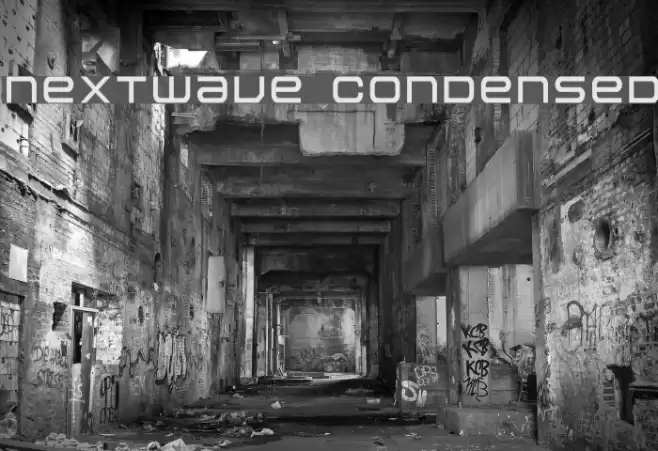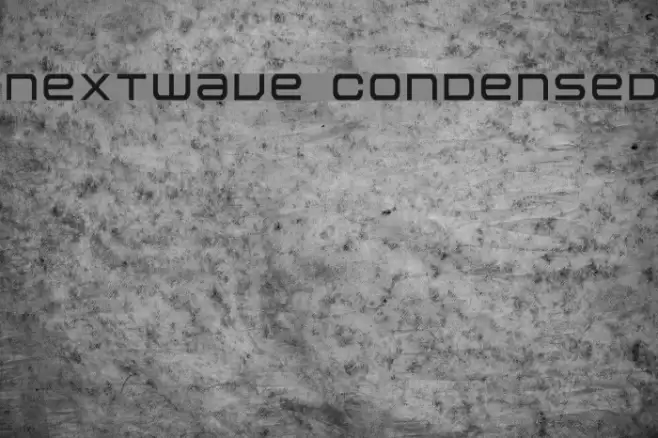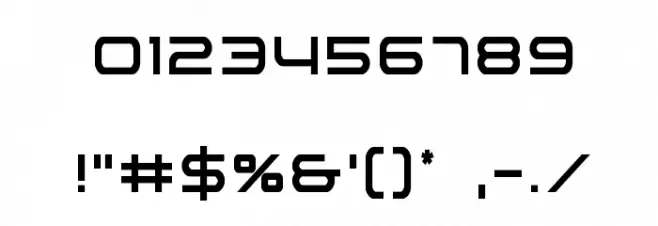
Nextwave Condensed Font
Nextwave Condensed Description
This font features a modern, geometric design with a condensed structure, characterized by its clean lines and angular forms. The uppercase and lowercase letters maintain a consistent height, contributing to a uniform appearance. The numerals and special characters are designed with the same geometric precision, ensuring readability and style. The font's overall aesthetic is sleek and futuristic, making it suitable for contemporary design projects. Its condensed width allows for efficient use of space, making it ideal for headlines and titles where space is limited.
A modern, geometric, and condensed font with a sleek, futuristic style from Uncategorized fonts.
- Proposed Projects: Ideal for technology branding, modern advertising, digital interfaces, and futuristic-themed projects.
- Use Case: Headlines, Logos, Digital Interfaces